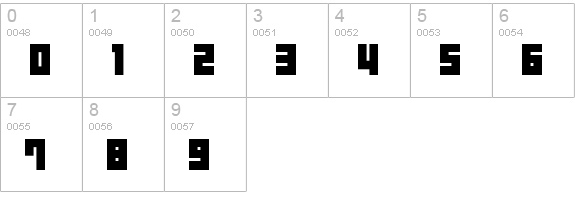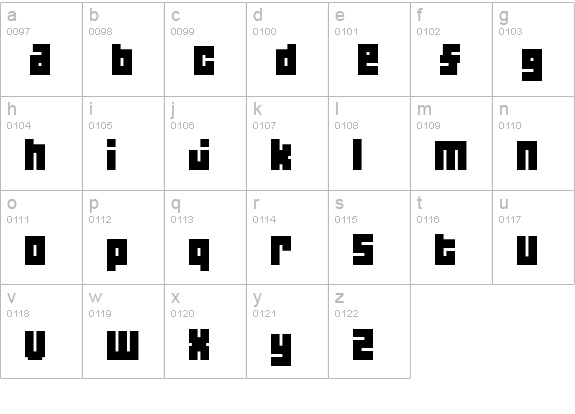
04b 19 font is a unique and modern typeface that exudes a futuristic and digital aesthetic. With its sharp edges and bold design, this font is perfect for creating eye-catching headlines, logos, and posters. Its sleek and minimalistic appearance makes it suitable for a wide range of design projects, from websites to print materials. What sets 04b 19 font apart is its versatility and readability, making it a popular choice among designers and creatives looking to make a statement. Whether you're working on a tech-related project or simply want to add a contemporary touch to your designs, this font is sure to impress. The best part? 04b 19 font is available for free download at FontsMarket.com, allowing you to access this stylish typeface without any cost. Don't miss out on the opportunity to enhance your designs with this modern and dynamic font today!